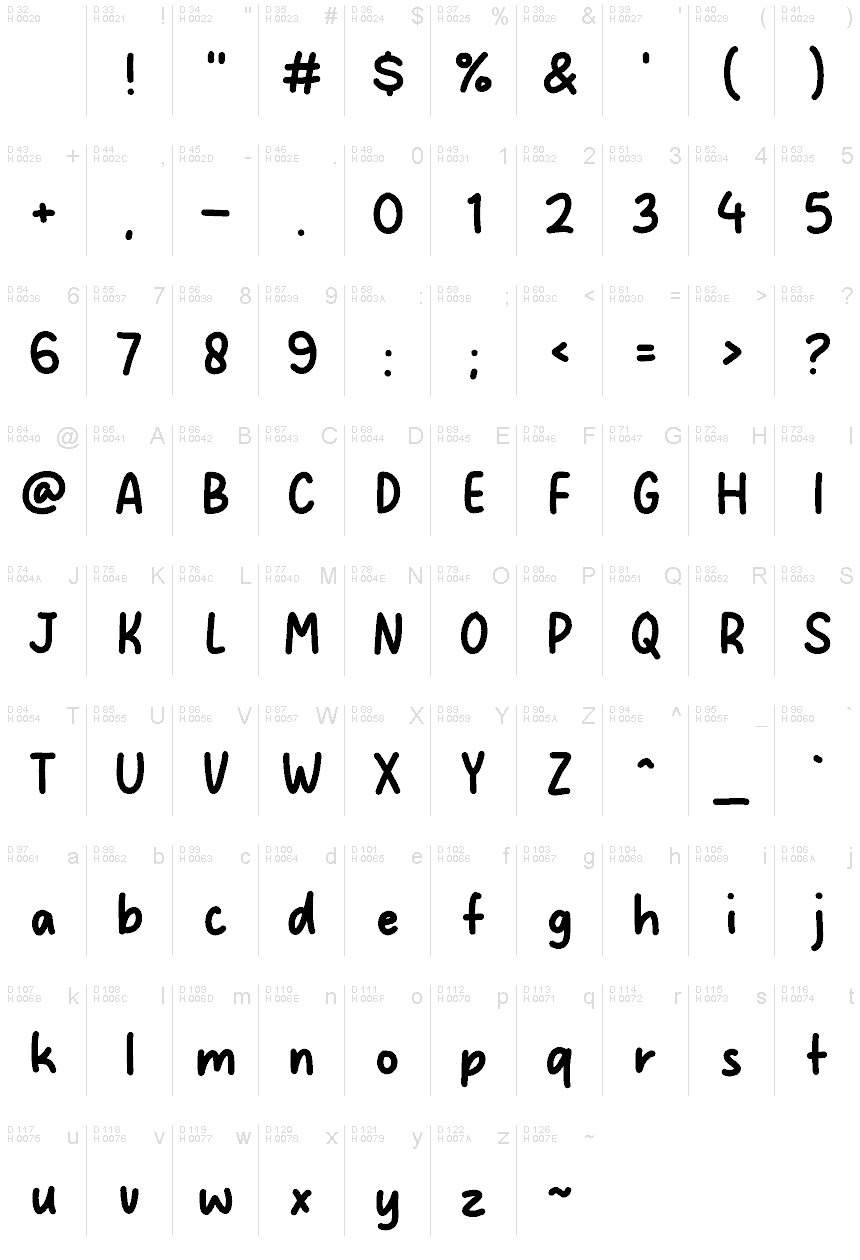
Naturaly
Naturaly font, designed by MJType, is a free handwritten font that captures a casual and approachable feel. With its organic style, it brings warmth and friendliness to any design. The natural flow of the letters mimics handwriting, making it perfect for projects that require a personal touch.
Ideal for branding projects, social media posts, event invitations, and packaging designs. Use in greeting cards, personalized gifts, children’s book covers, blog headers, or stationery items. This versatile font is also great for quotes or product labels where a genuine and gentle touch is desired.